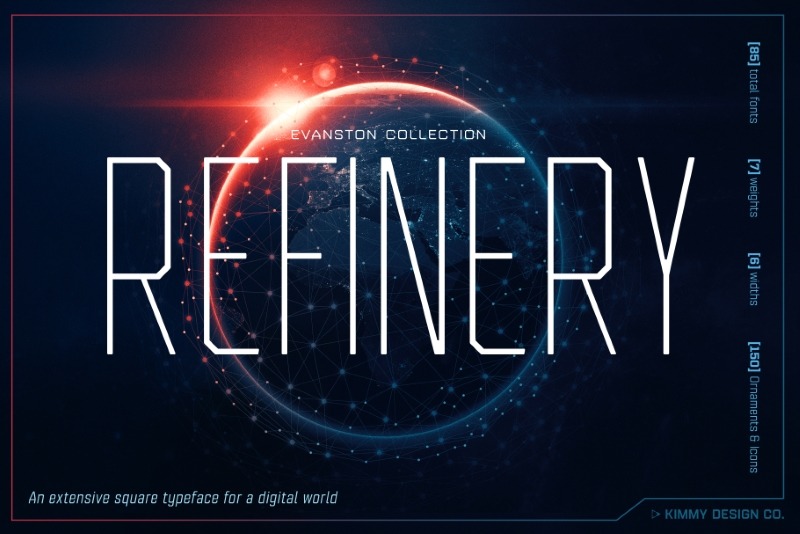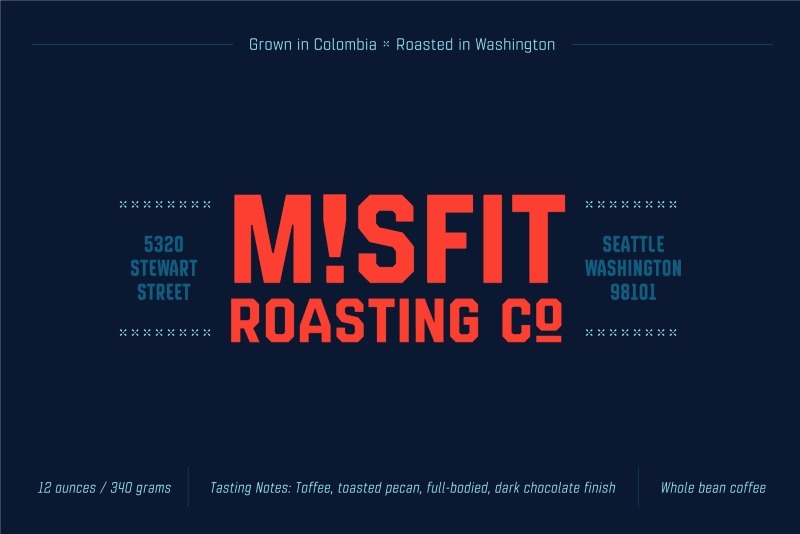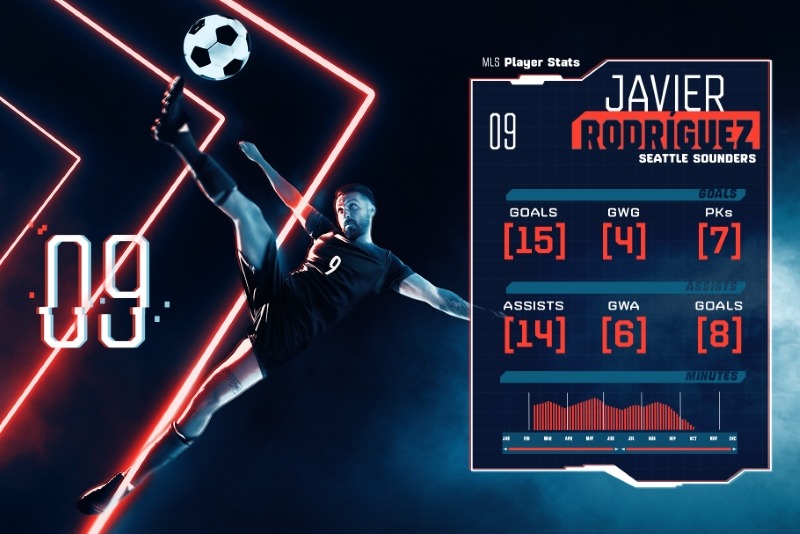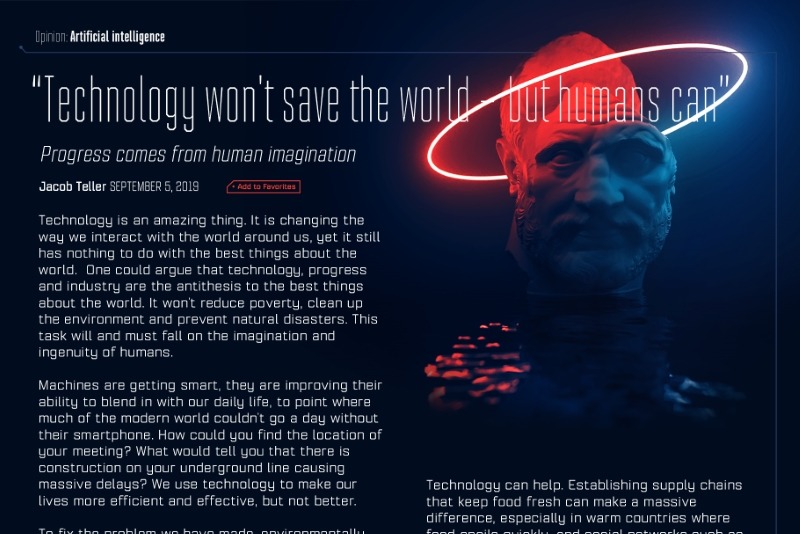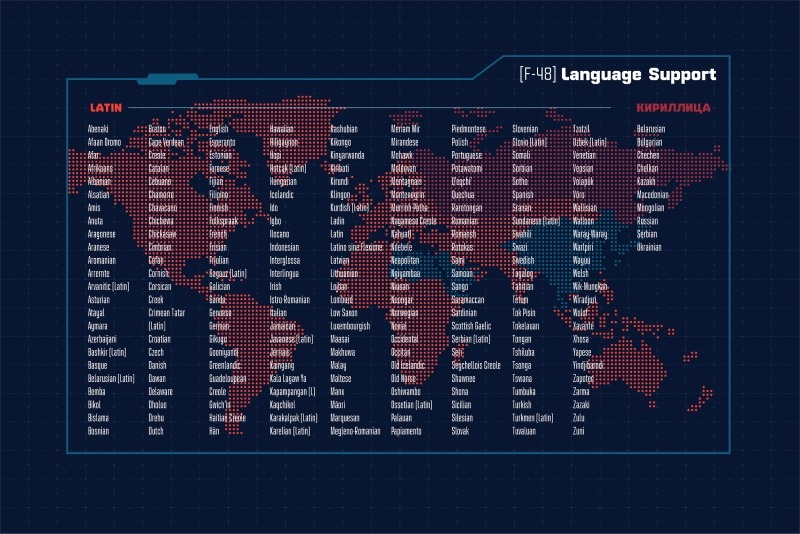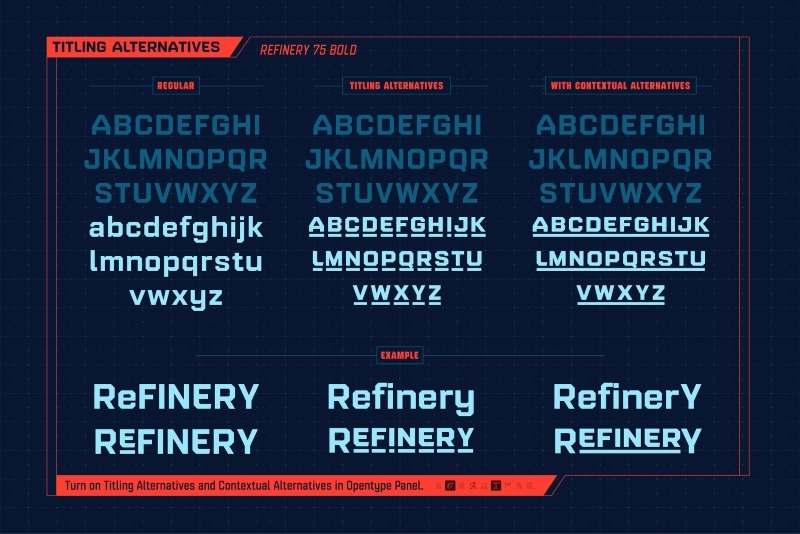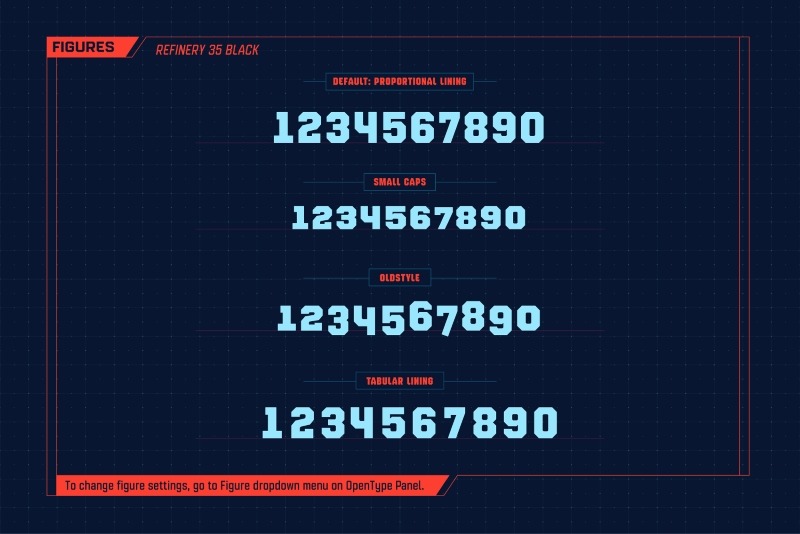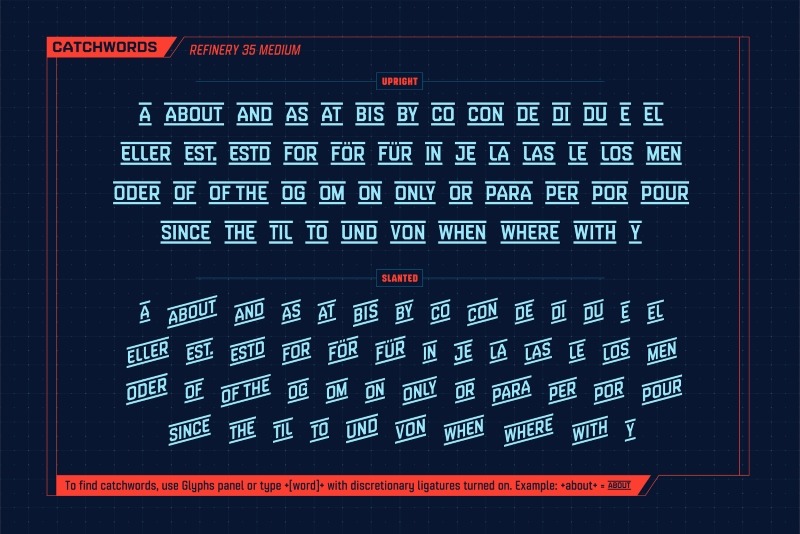
Introducing Refinery, a beautifully designed typeface featuring an industrial looking square design, 85 font varietions & 14 weights with matching italics
The font is delivered in OTF file format and includes 150 vector ornaments that complement the font's design - icons, arrows, patterns, HUD elements & more! The font also includes a variety of OpenType features that allow for even further customization, like stylistic alternates, small capitals, titling alternates, figures, discretionary ligatures, catchwords and many more!
- Square sans-serif font design
- 14 weights from Hairline to Blacks
- Matching italics for every weight
- Includes 150 ornaments, icons, arrows, patterns & line breaks